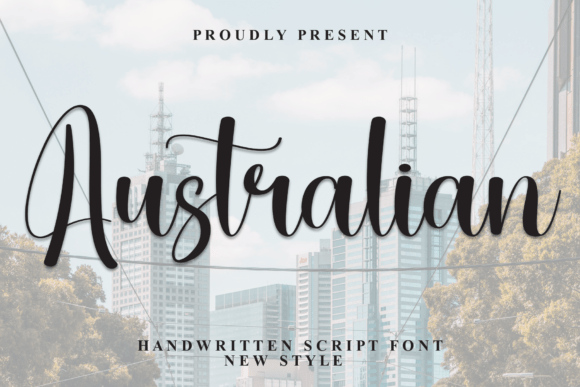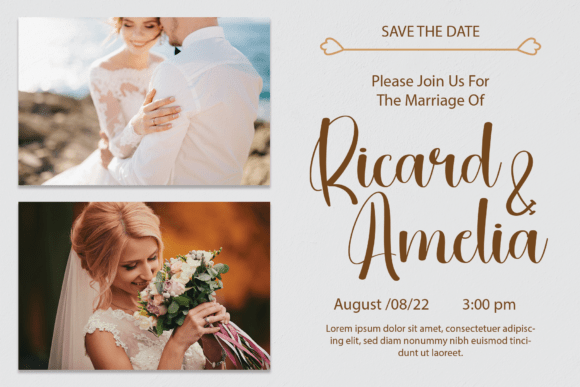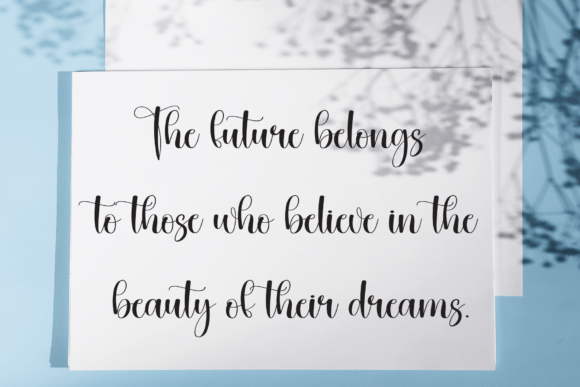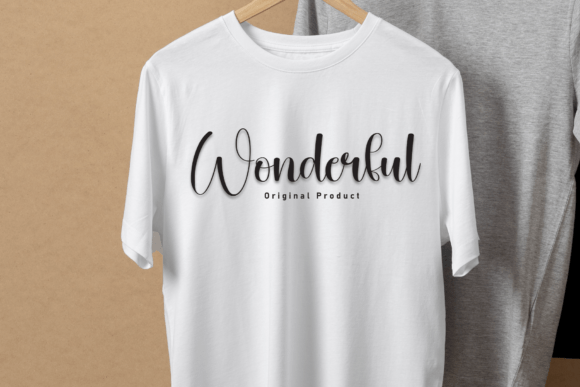
Australian Font
About the Australian Font
Welcome to the world of Australian Font, a typeface that will inspire your next great project. Australian is a stylish handwritten script font that radiates elegance and fluidity. Its smooth, flowing strokes create a natural and sophisticated feel, perfect for branding, invitations, and creative projects. With a graceful balance of charm and modernity, this typeface adds a personal, artistic touch to any design.
Australian excels in applications requiring a touch of refined elegance, such as logos, wedding invitations, or short-form editorial pieces. Its fluid nature makes it unsuitable for extended body text or UI elements where readability is paramount. Avoid using it for lengthy paragraphs or small sizes.
Consider pairing Australian with a clean sans-serif like Montserrat for a contemporary feel, or a classic serif such as Garamond for a more traditional aesthetic. A geometric sans-serif like Futura could also provide a striking contrast, emphasizing Australian’s organic quality.
The font projects a sophisticated and slightly playful personality, best suited for brands aiming for a balance of charm and modernity. It’s ideal for conveying a sense of luxury, creativity, and personal expression.
Australian Font Usage Examples
Australian Font Example